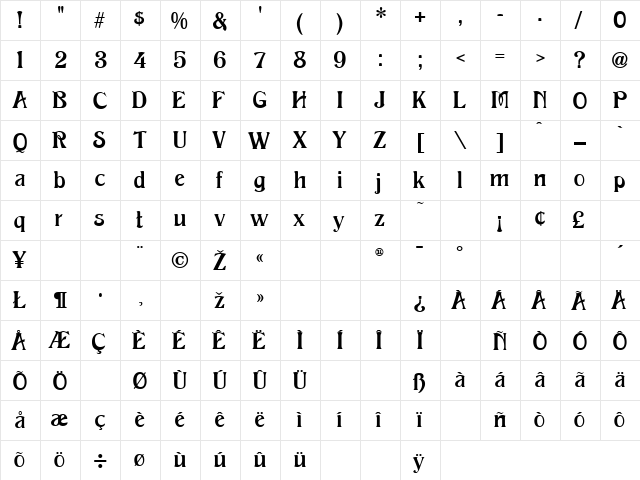
Excellent Normal
Design Context for Excellent Typeface
Excellent is a composed and adaptable typeface that performs quietly and consistently across a wide range of design contexts.